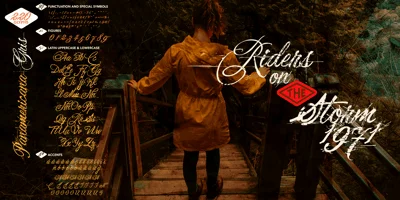
Panamericana Font
Panamericana Font is perfect for Pan-American cultural events, Latin music festivals, multicultural organizations, international travel branding, cross-border trade companies, diplomatic missions, Americas unity projects, cultural exchange programs, international airlines, and any projects that need unifying typography with continental scope and multicultural celebration.
What makes Panamericana Font exciting is its unifying design that celebrates the rich diversity and shared heritage of the American continents with letterforms that bridge cultures from Alaska to Argentina in a spirit of continental solidarity. This inclusive typeface features harmonious characteristics with multicultural warmth that reflects the vibrant tapestry of languages, traditions, and peoples that make the Americas a dynamic region of endless possibility and cultural exchange. The font's Pan-American character makes it perfect for organizations seeking to communicate unity, diversity, and the powerful connections that bind together the nations and peoples of North, Central, and South America.
Panamericana Font family includes continental style variations featuring light, regular, medium, and bold weights. The font family also offers multicultural italic versions with enhanced flowing characteristics, along with extended variants that accommodate diverse linguistic needs. Special features include Pan-American symbols, cultural ornaments, and continental decorative elements that enhance the unified atmosphere of international design applications and cross-cultural communications.
Unite the Americas with Panamericana Font and bridge cultural divides with typography that celebrates the shared dreams and diverse traditions that make the American continents a beacon of multicultural harmony. This unifying typeface delivers continental performance across all international applications, ensuring your message resonates with the spirit of cooperation and cultural celebration that defines Pan-American ideals. Download Panamericana Font today and connect your designs to the greater American story with typography that honors our shared hemisphere, creating powerful connections with audiences who believe in the strength that comes from diversity and the bright future we build together across all borders.